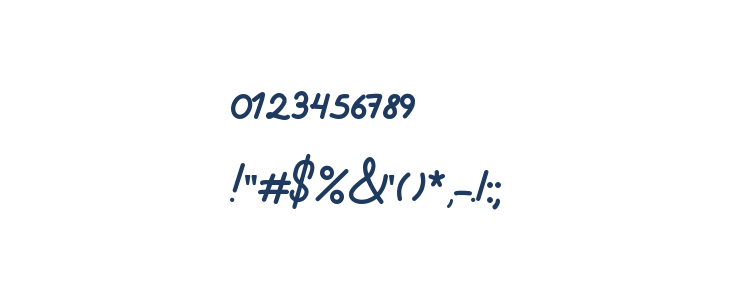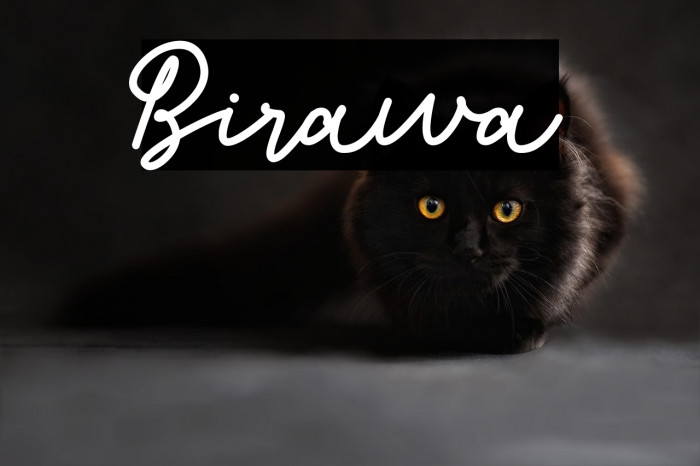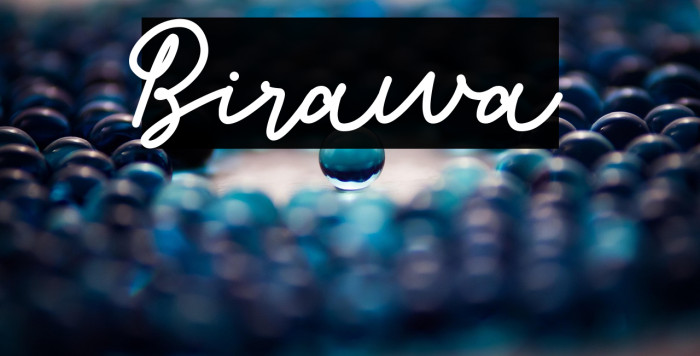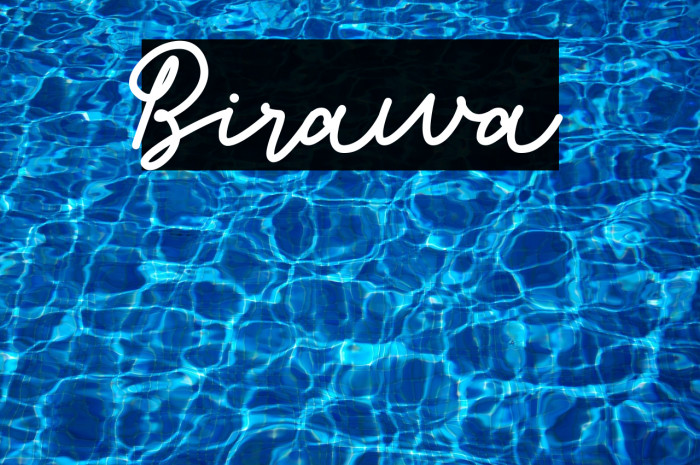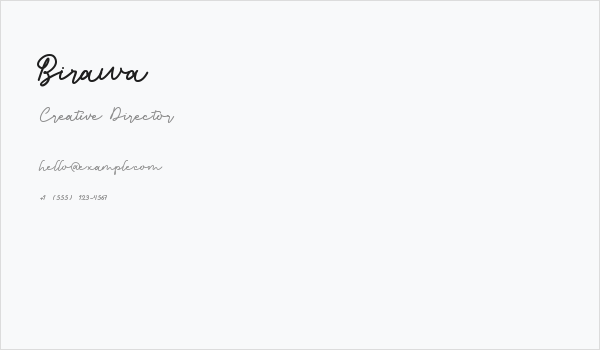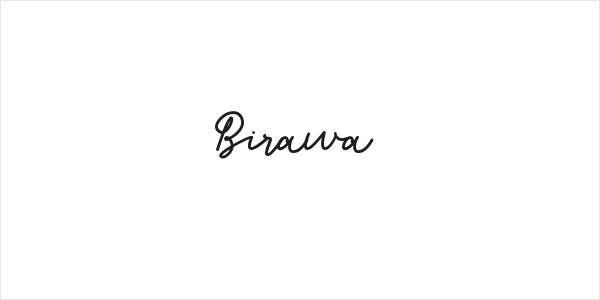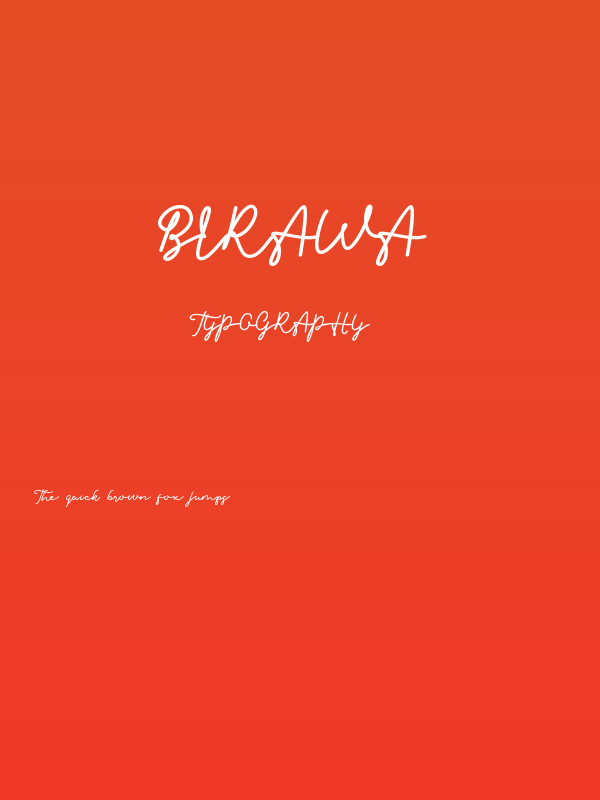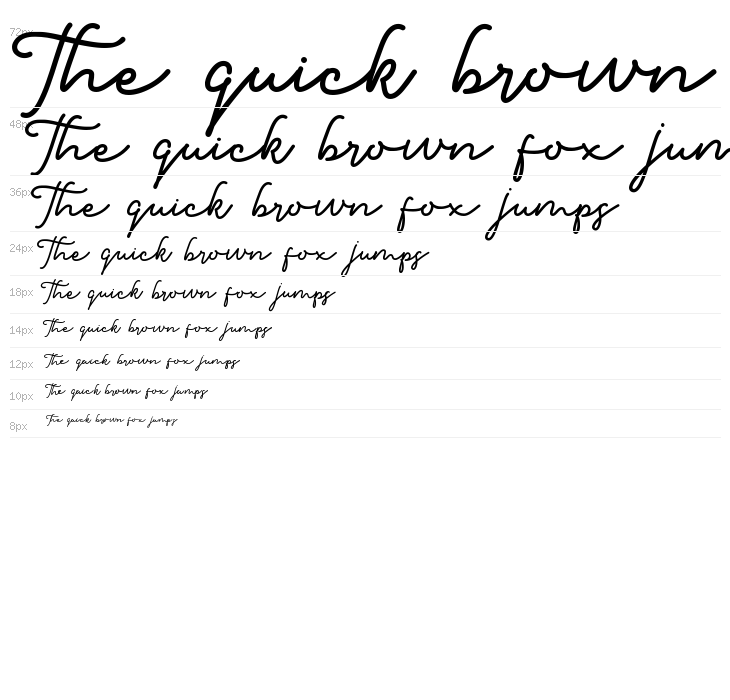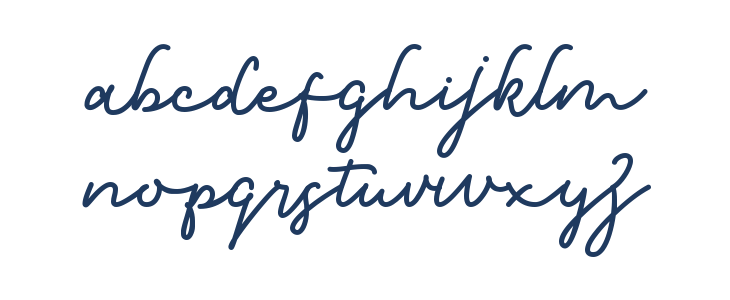
Birawa Font
Birawa Description
This font features a fluid, cursive style that mimics natural handwriting. The letters are connected, creating a seamless flow that is both elegant and casual. The uppercase letters are slightly larger and more pronounced, while the lowercase letters maintain a consistent height, enhancing readability. Numbers and special characters are designed to match the script style, ensuring a cohesive look across all text elements. The strokes are smooth and rounded, giving the font a friendly and approachable feel. This font is ideal for projects that require a personal touch, such as invitations, greeting cards, and branding materials.
Overall StyleCasual
Use CaseLogos, Invitations, Greeting Cards
Proposed ProjectsIdeal for invitations, greeting cards, and personal branding.